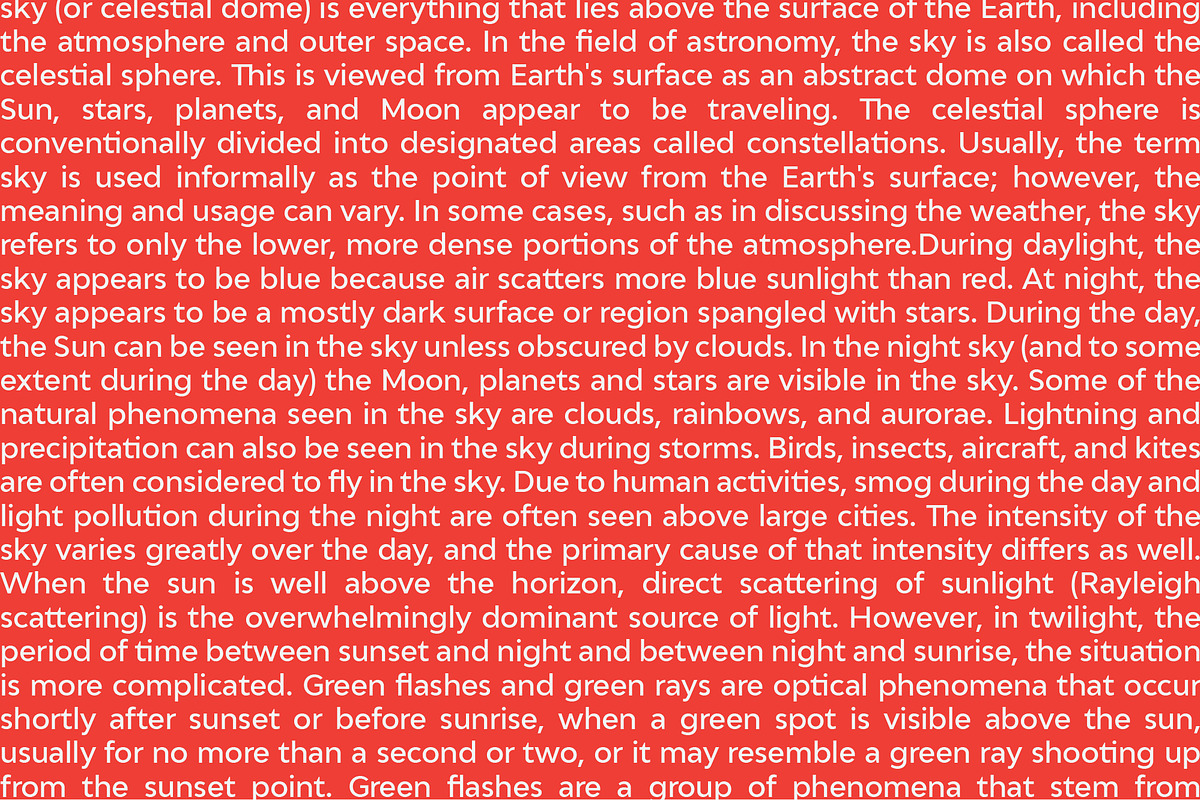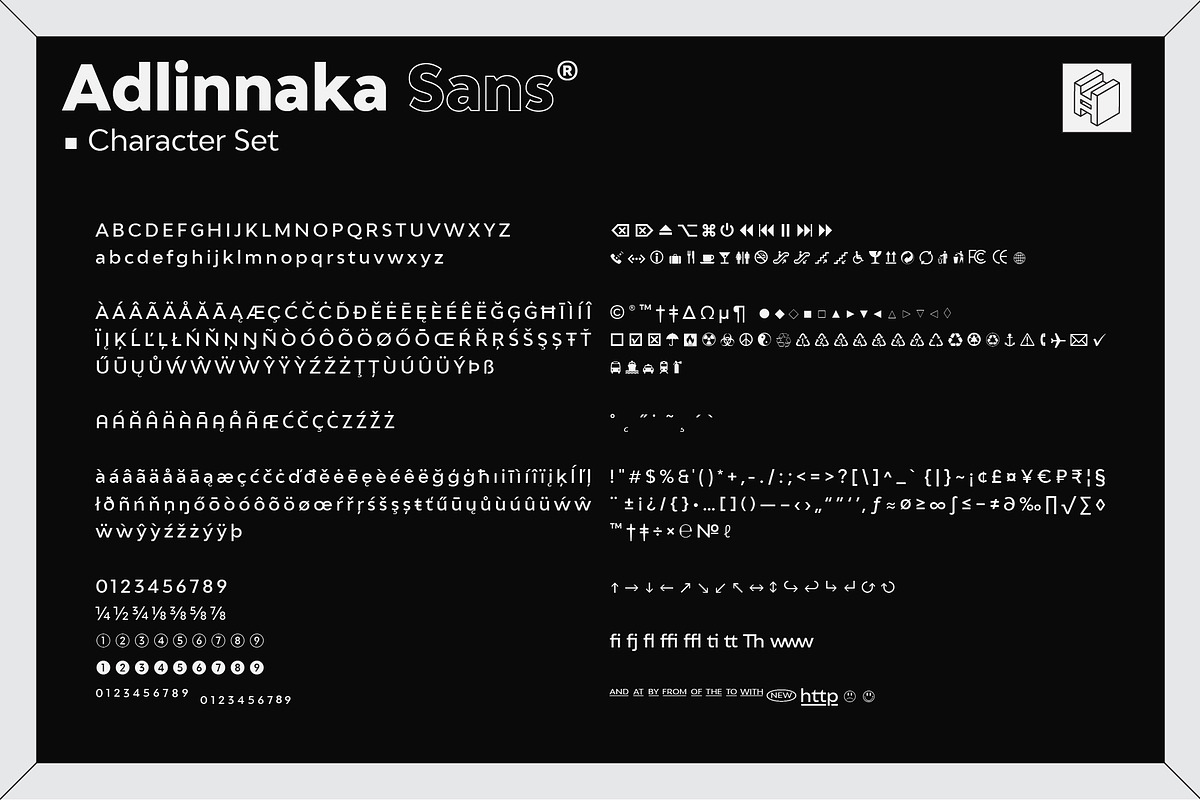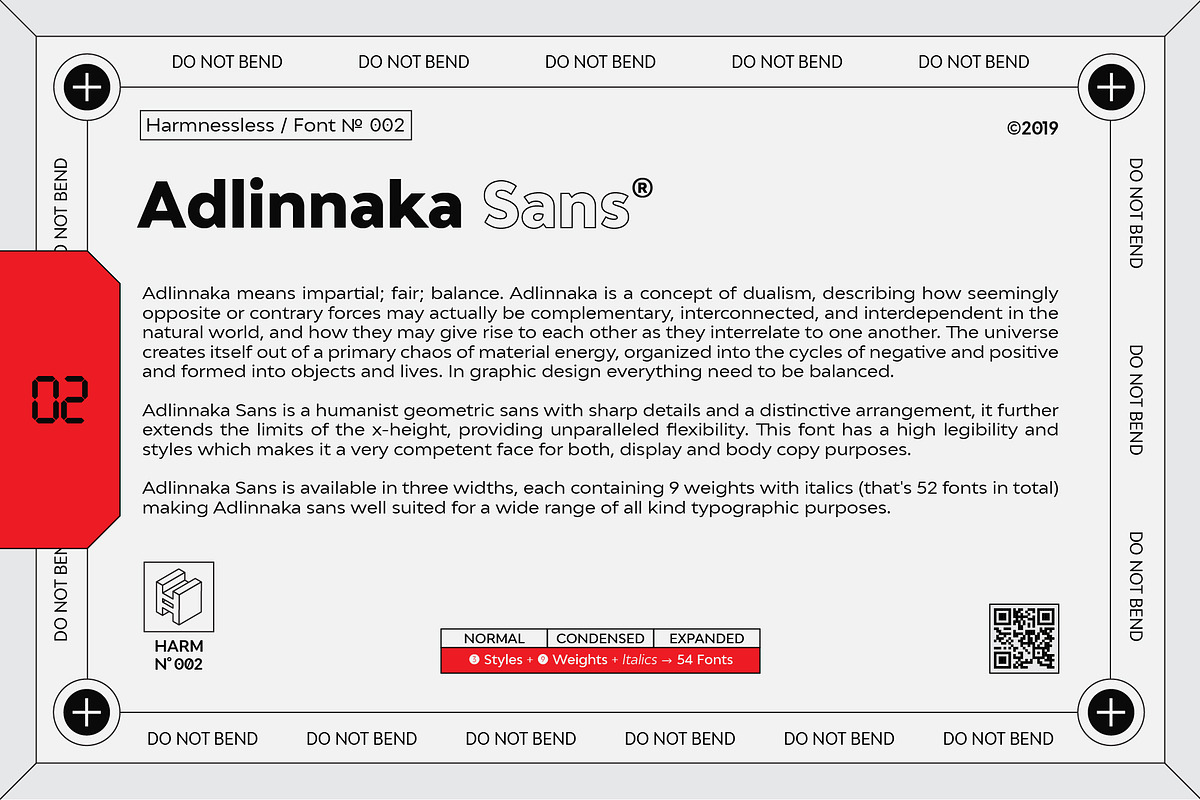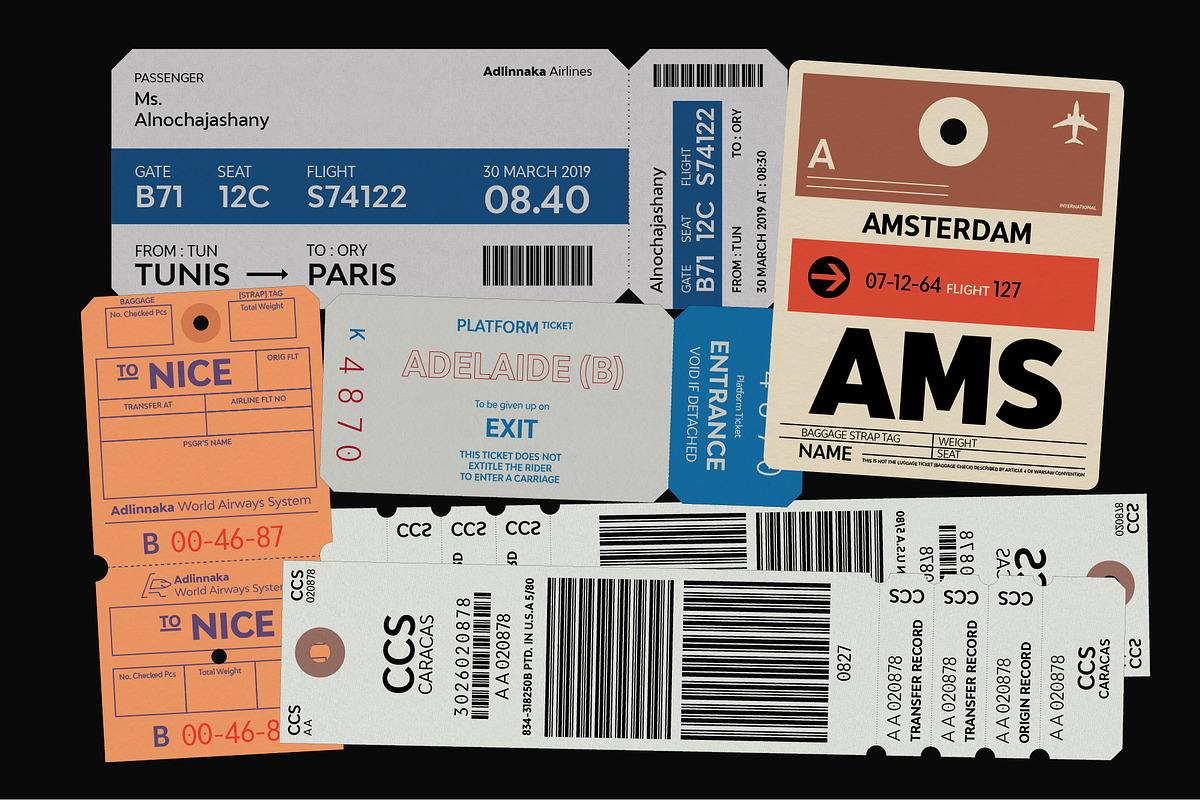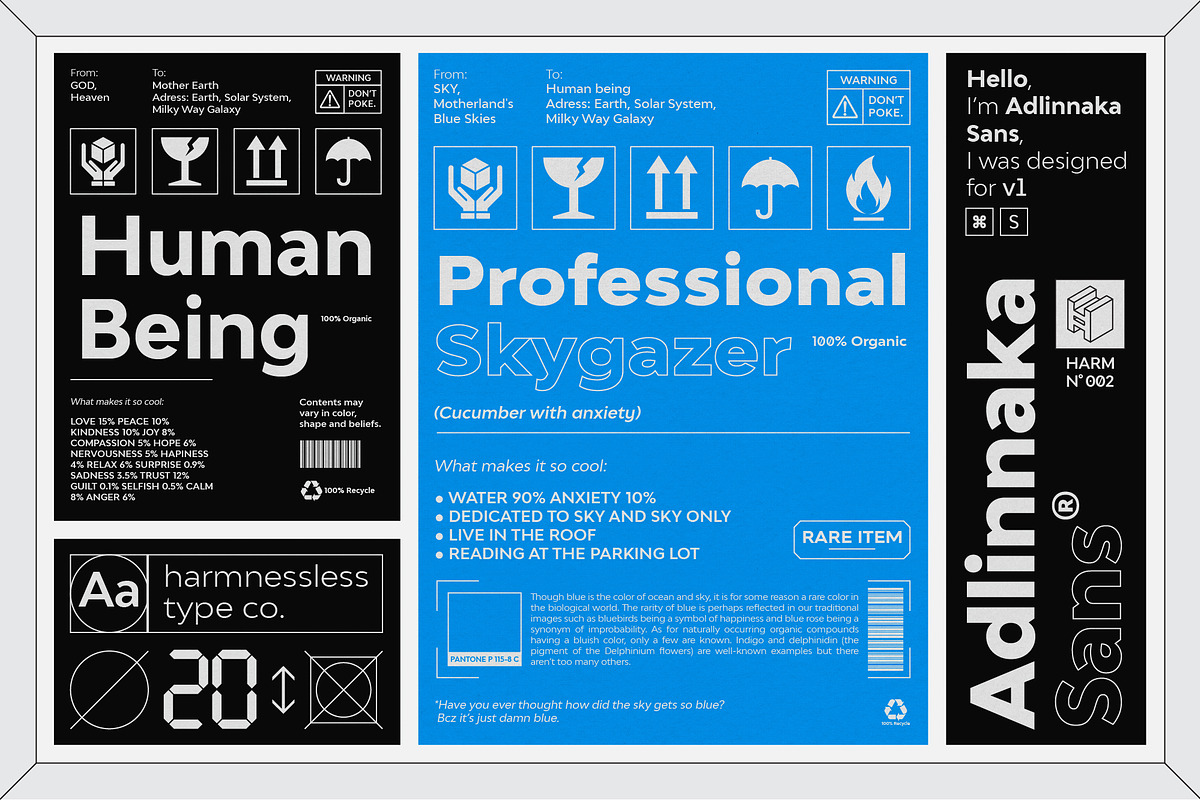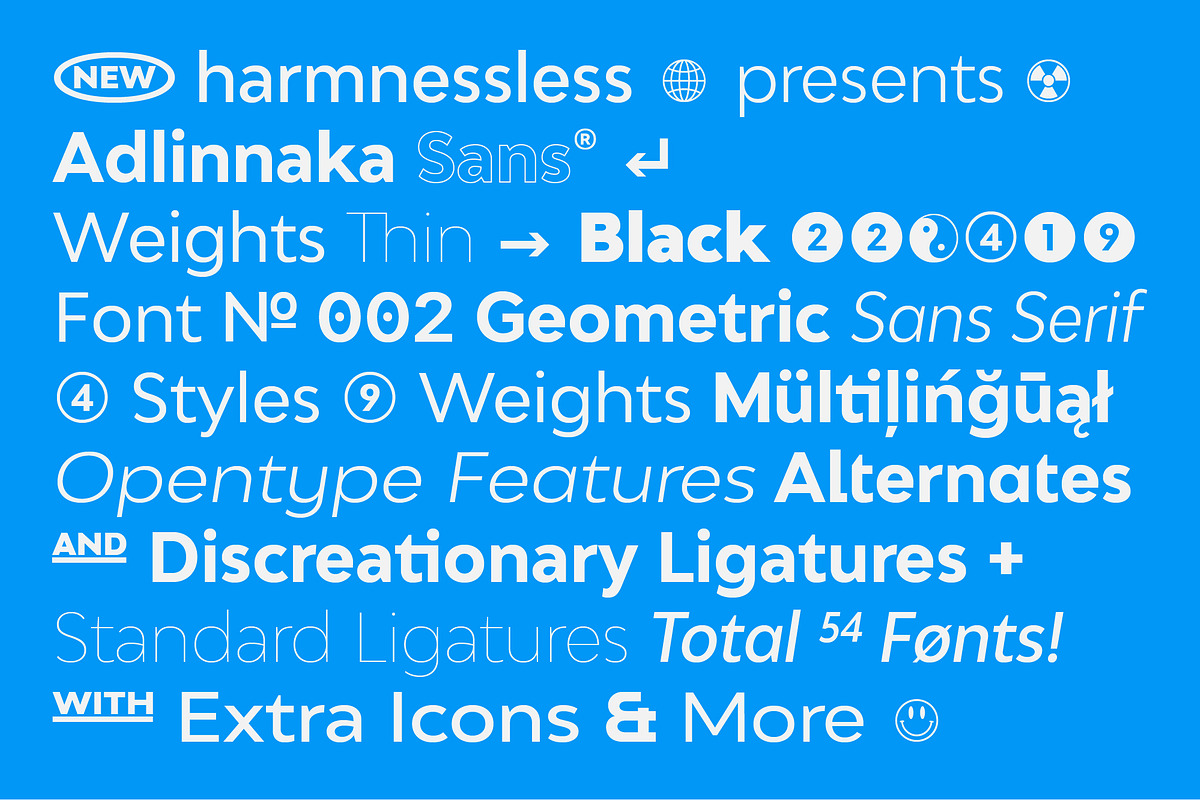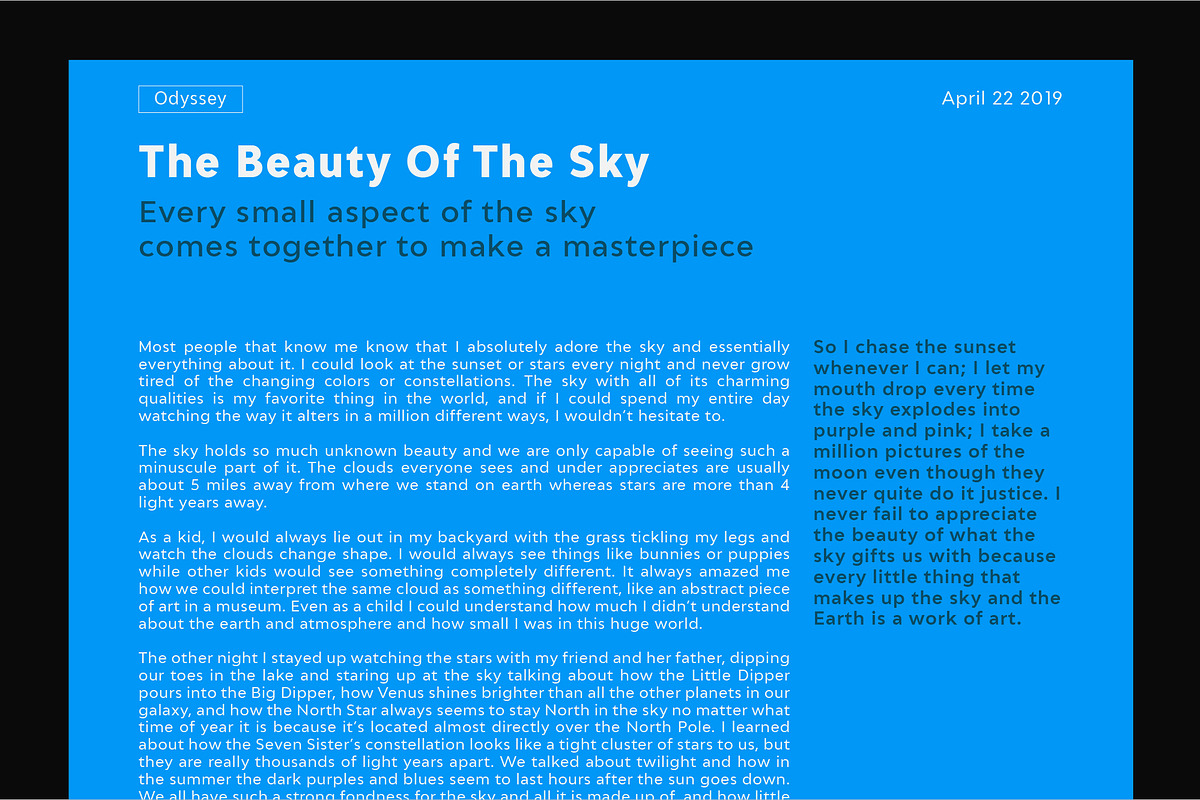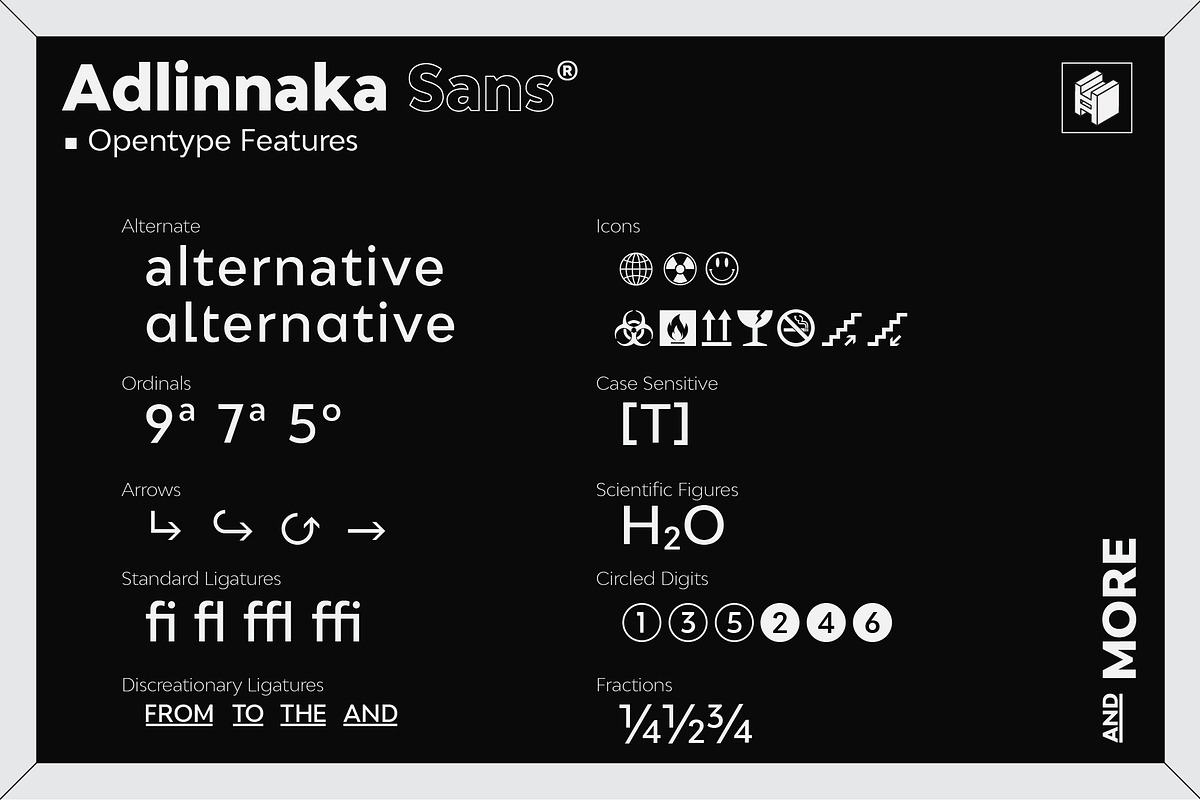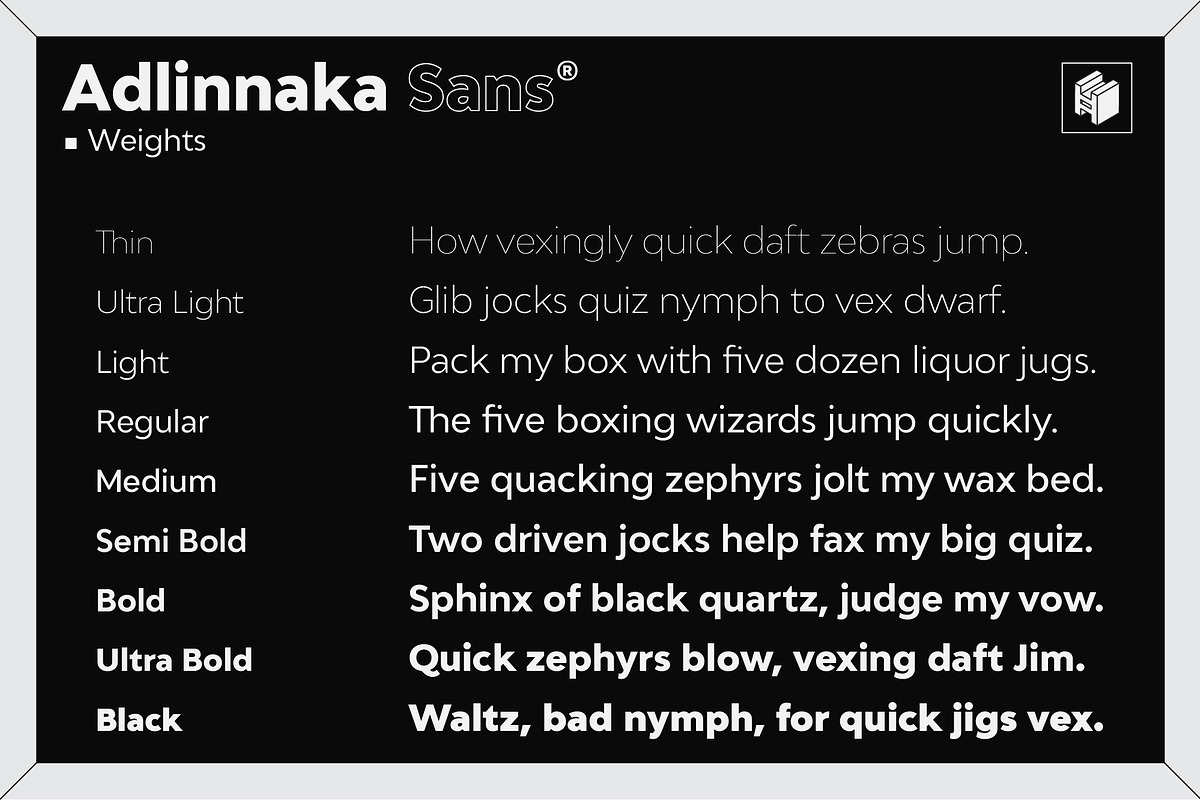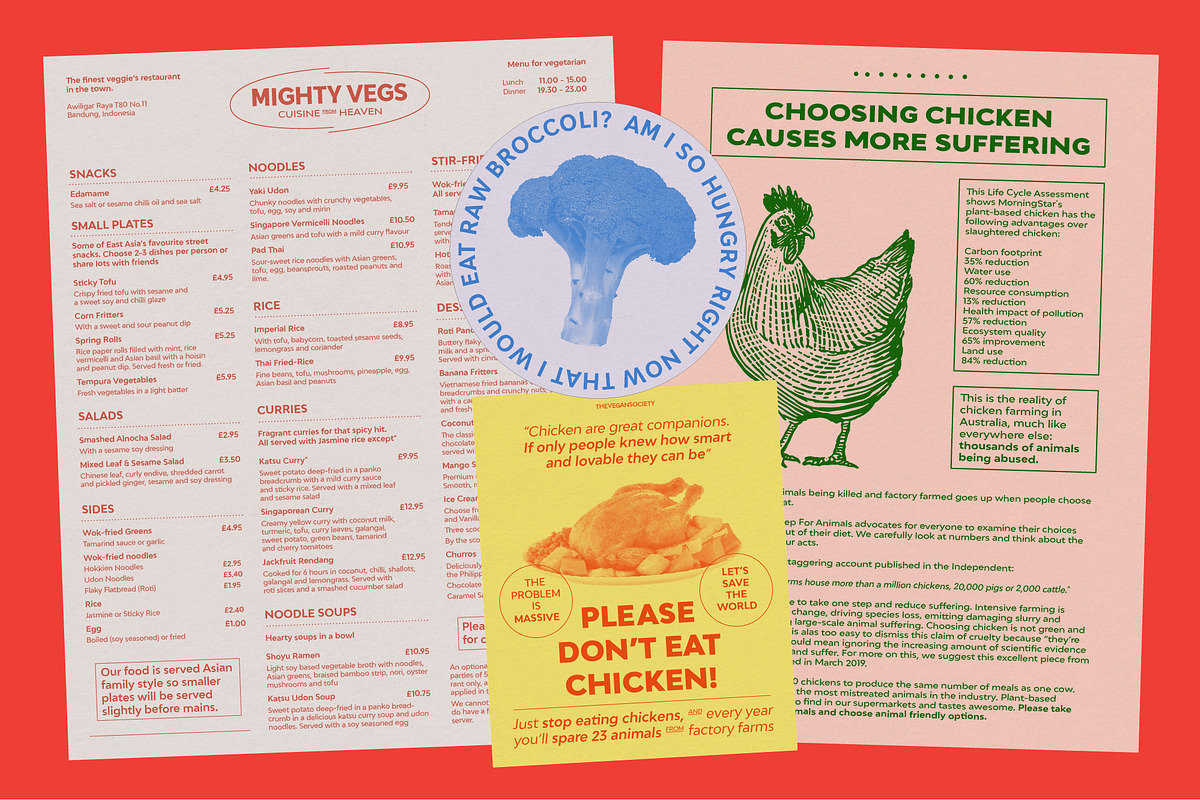
Adlinnaka means impartial; fair; balance. Adlinnaka is a concept of dualism, describing how seemingly opposite or contrary forces may actually be complementary, interconnected, and interdependent in the natural world, and how they may give rise to each other as they interrelate to one another. The universe creates itself out of a primary chaos of material energy, organized into the cycles of negative and positive and formed into objects and lives. In graphic design everything need to be balanced.
Adlinnaka Sans is a humanist geometric sans with sharp details and a distinctive arrangement, it further extends the limits of the x-height, providing unparalleled flexibility. This font has a high legibility and styles which makes it a very competent face for both, display and body copy purposes.
Adlinnaka Sans is available in three widths, each containing 9 weights with italics (that's 52 fonts in total) making Adlinnaka sans well suited for a wide range of all kind typographic purposes.